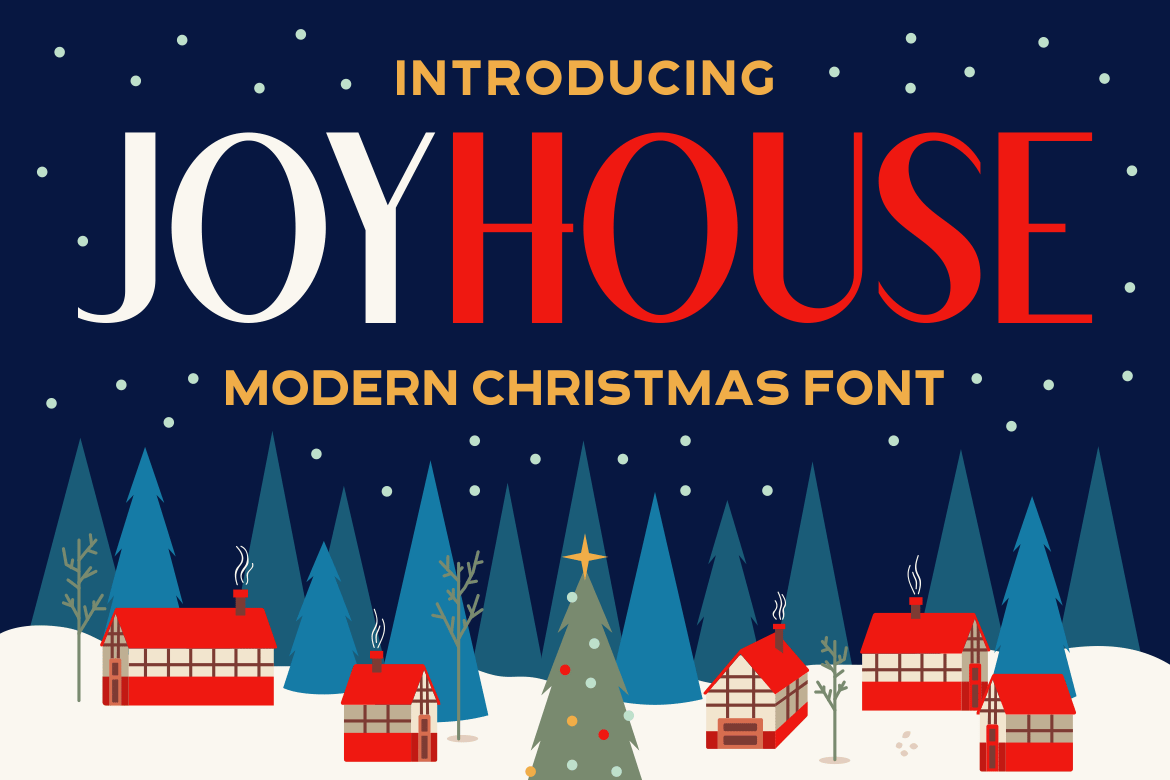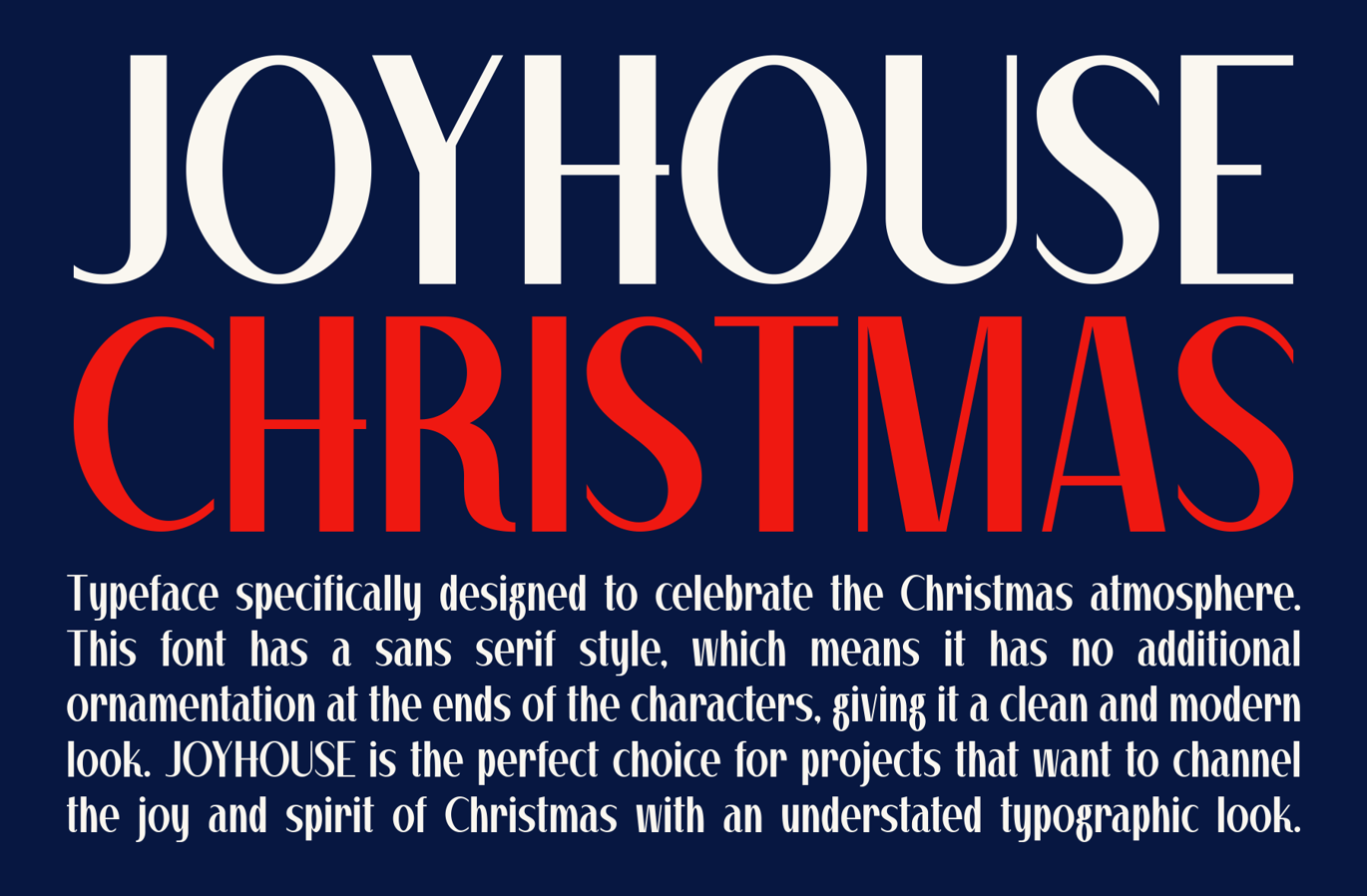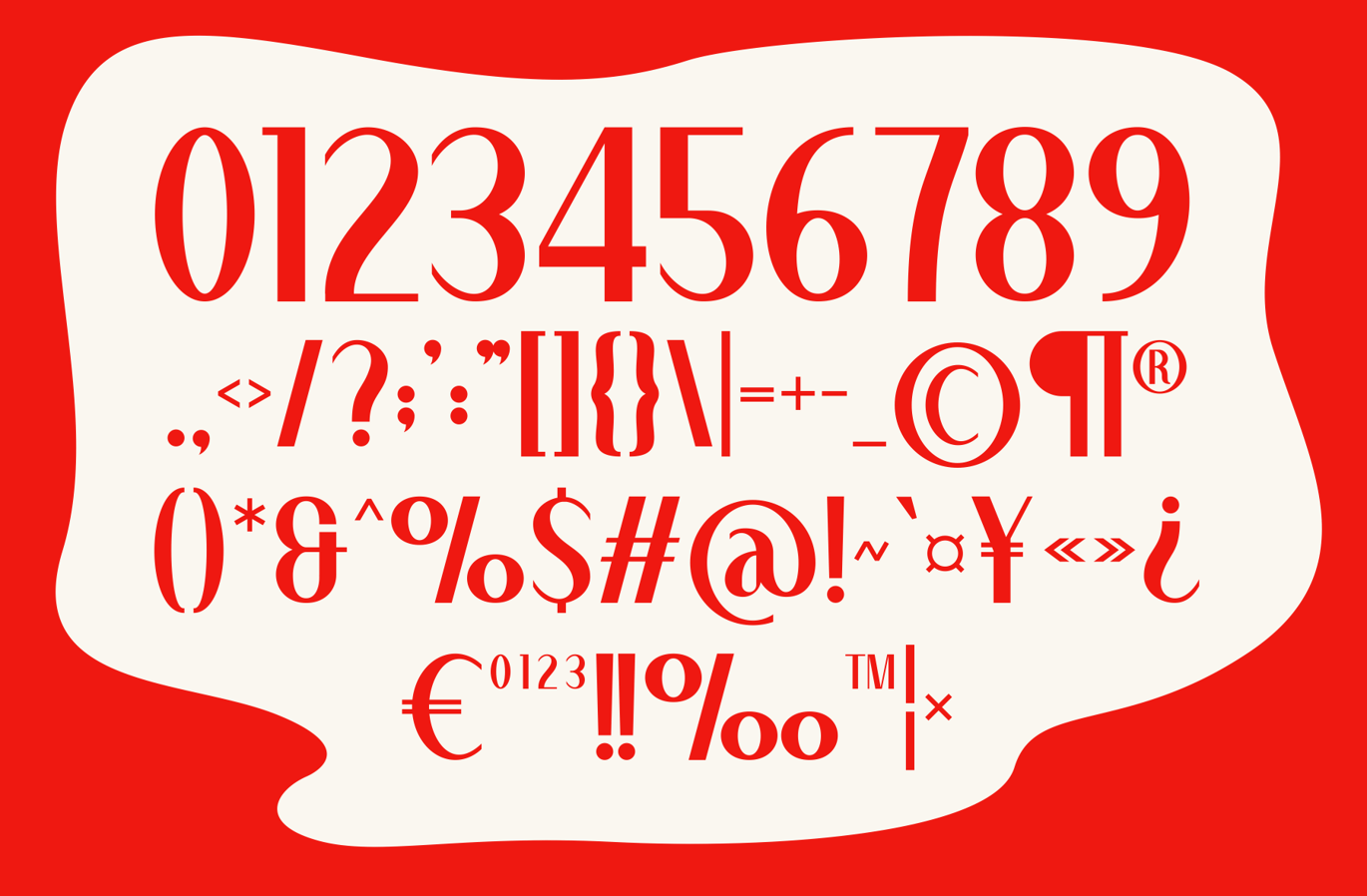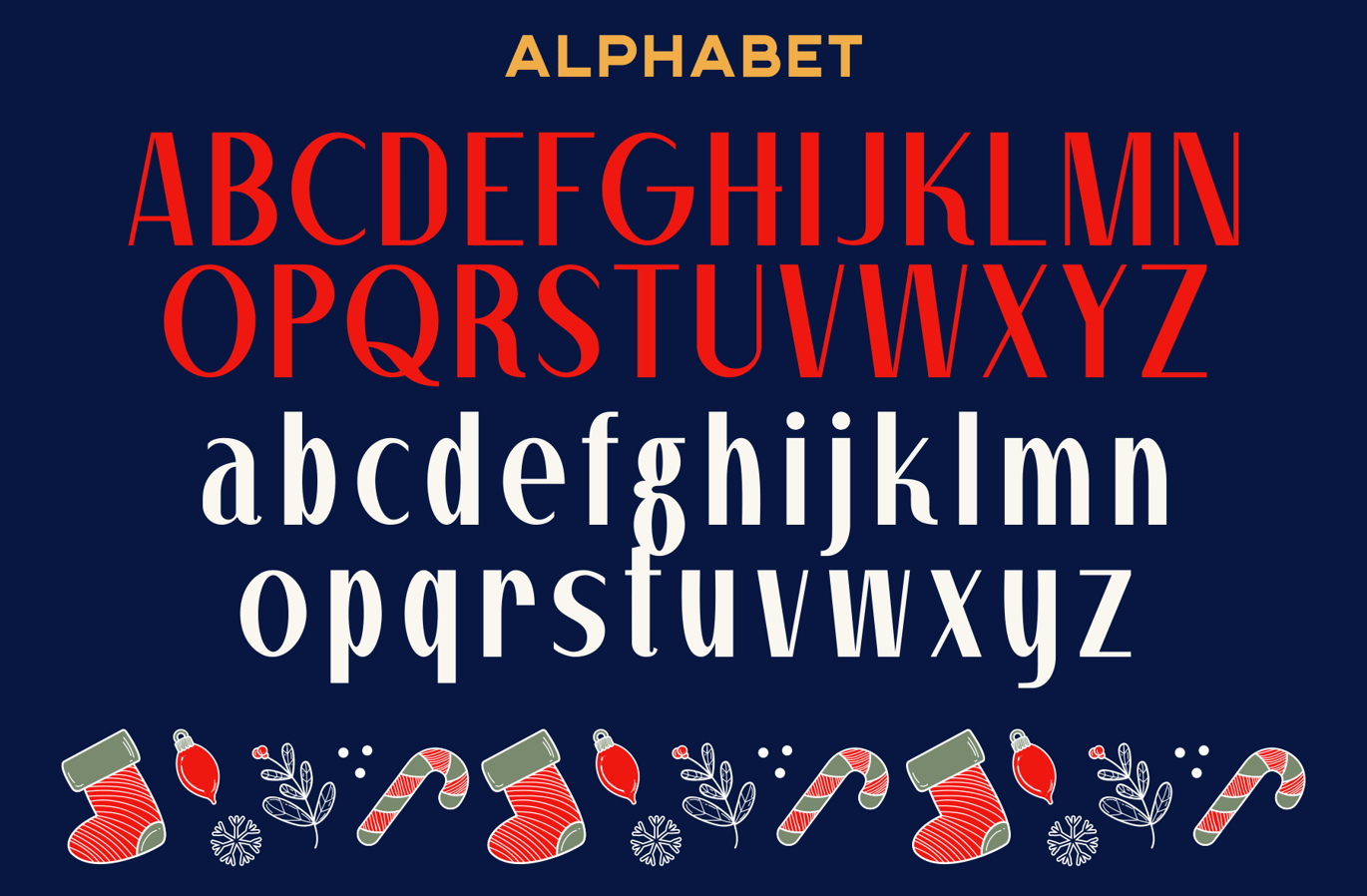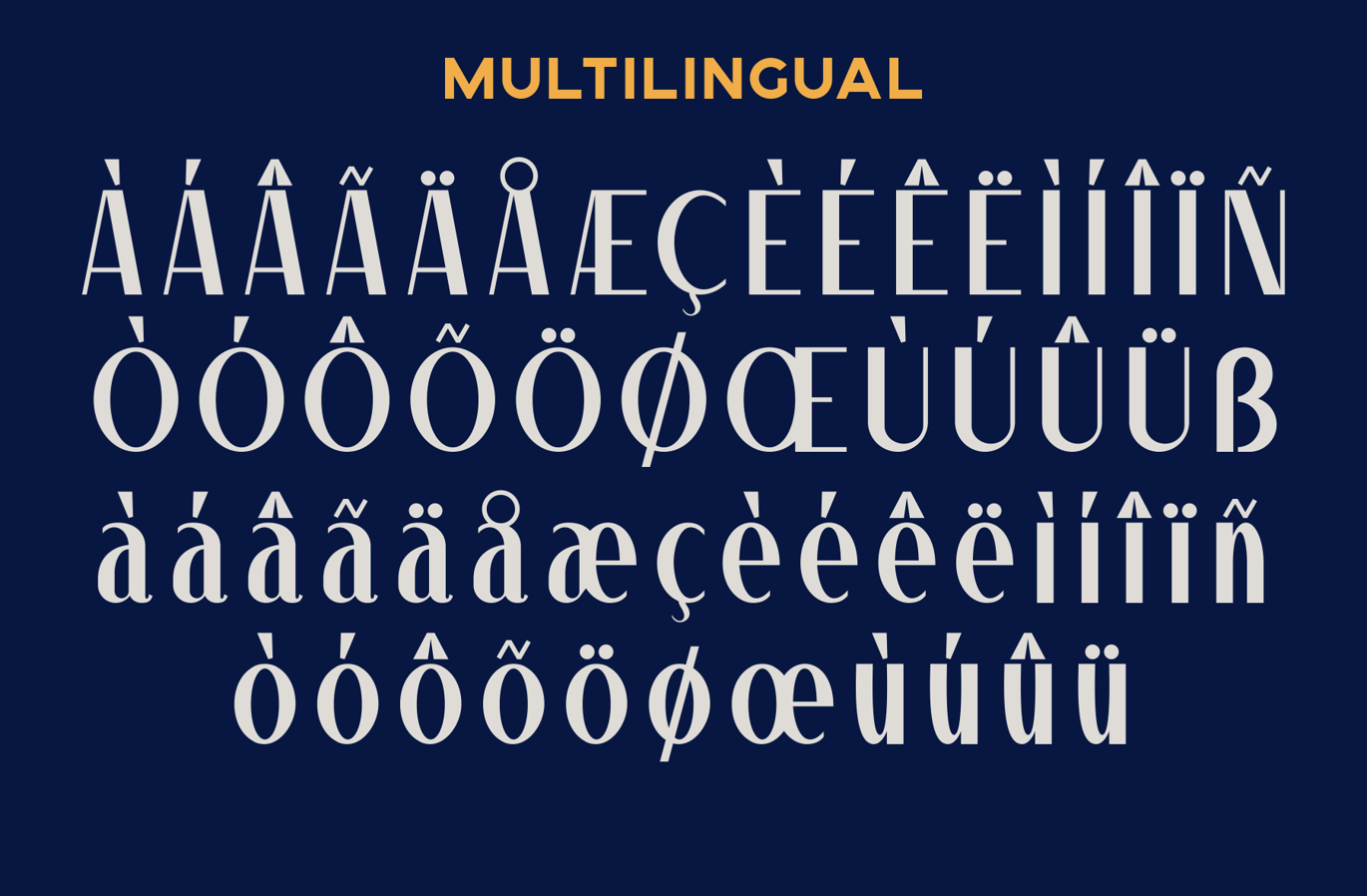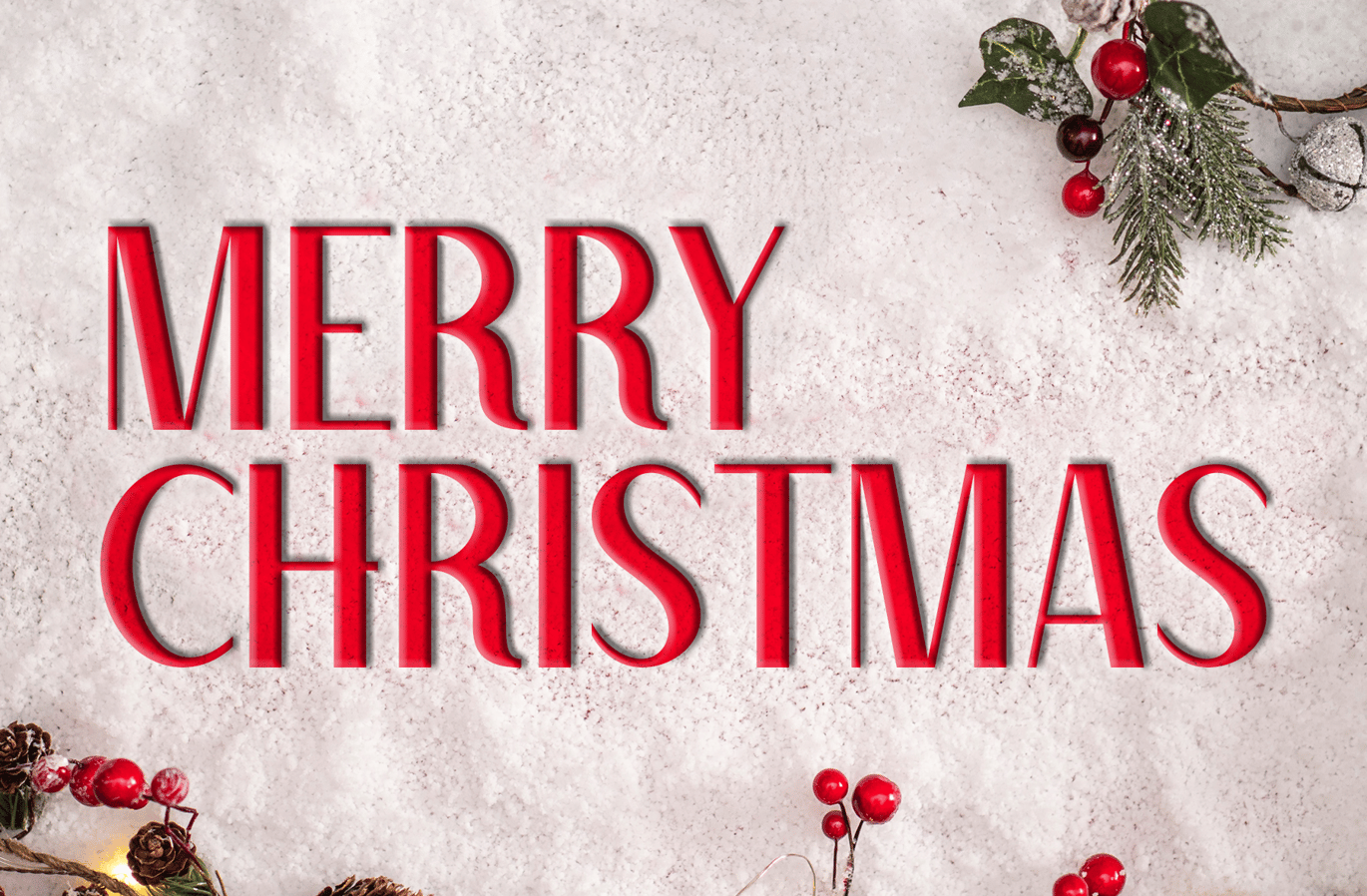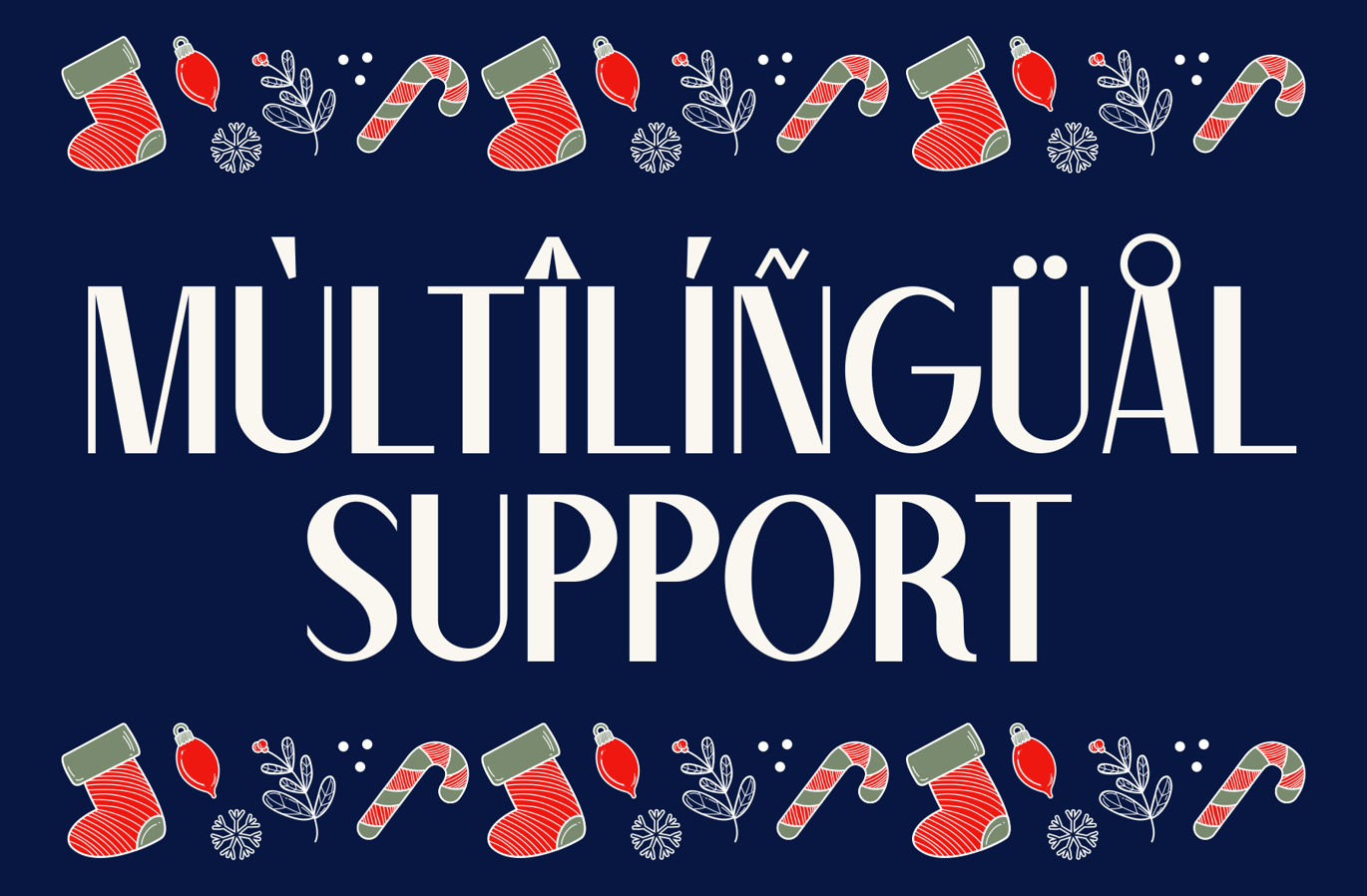
Joyhouse – A Modern Sans Serif Christmas Font
Introducing our new product JOYHOUSE Font -Modern Sans Serif Font
JOYHOUSE  Font – Modern Sans Serif Font is a Christmas authentic display font. The font is suitable for any branding project like logo, Template Design, Product and many more. outstanding in a wide range of contexts.